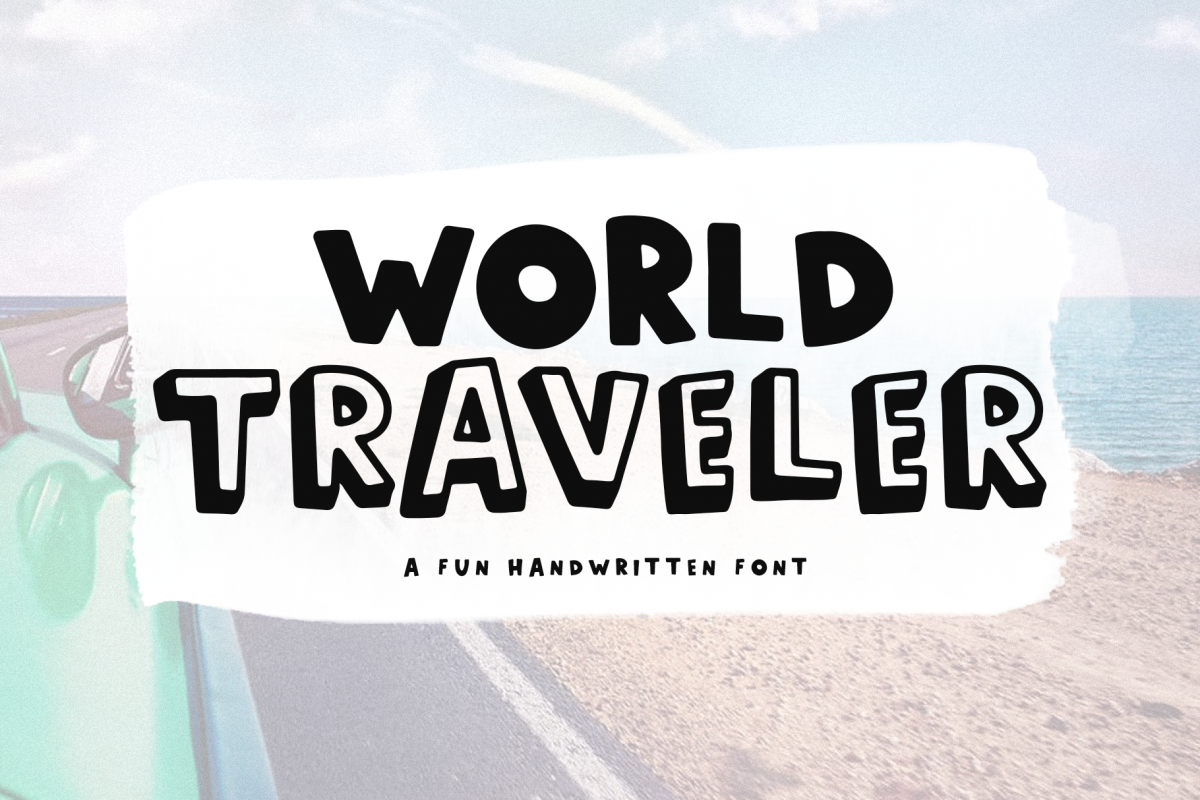
World Traveler - A Fun Handwritten Font
World Traveler is a handwritten font with big, quirky letters. It is an ALL CAPS font.
Lowercase Letters are solid and capital letters are open/3d.
This font is perfect for retro designs, shirts, svg files, quotes, mugs and more!
This font does include accent characters.